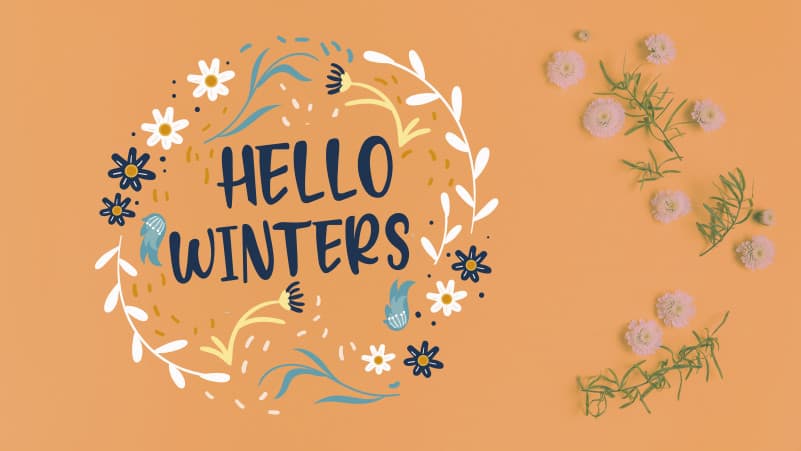
Orange Sky Display Font
Orange Sky Display Font is a handwritten display font, ideal to be put to use in posters or wishings. This font is equipped with uppercase, lowercase, numbers, punctuation, and several variations on each character including multi-language.